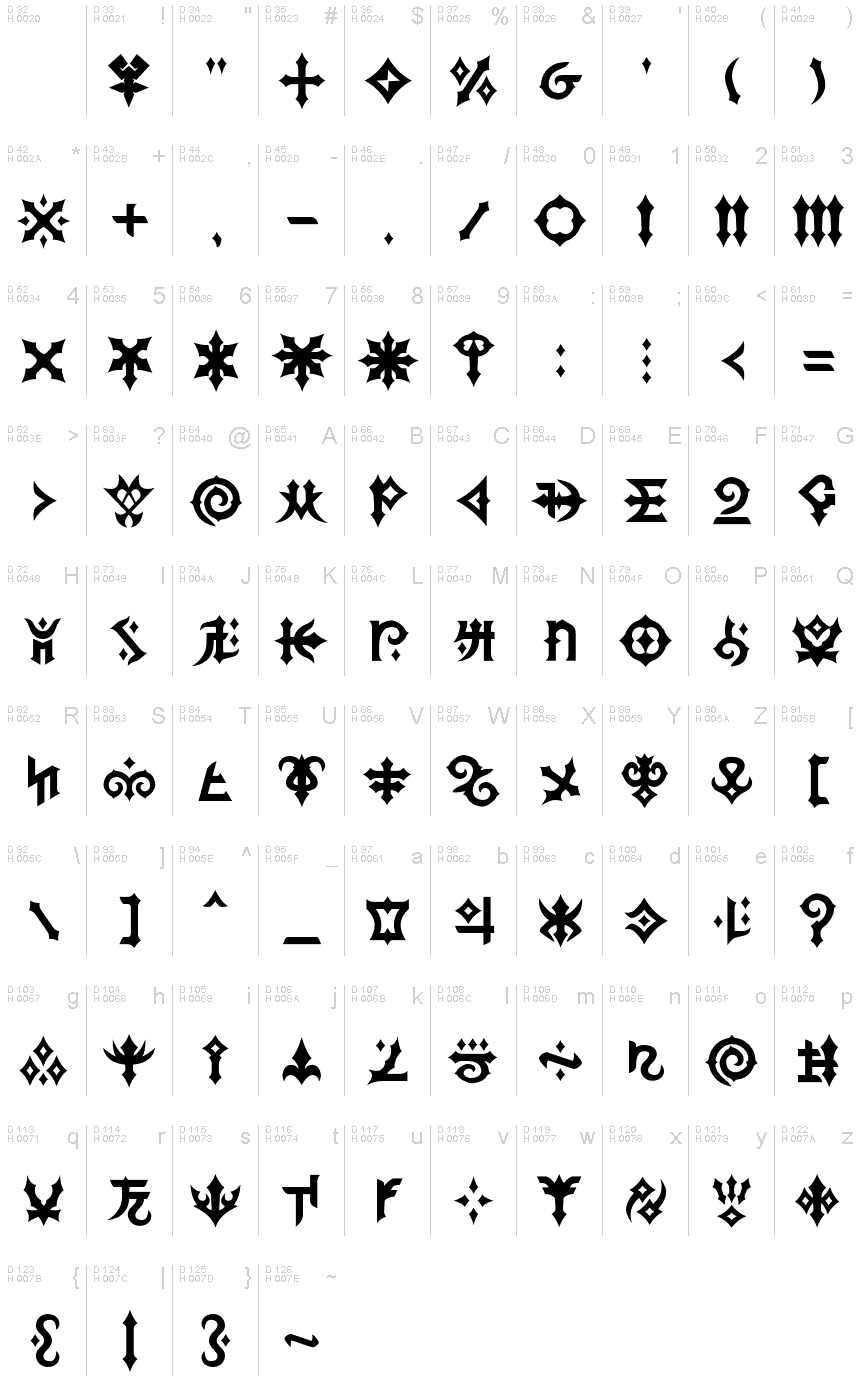
KHScala Regular
KHScala font is a cool decorative typeface designed by Televo.
In comparison to similar fonts found online, the characters in Re:Collection have been accurately recreated directly from the games where possible and have vastly improved spacing/kerning (especially when setting spacing to metric).
Numerous languages are supported including English, French, German, Italian, Spanish, Turkish, Polish, Norwegian, Swedish, Russian, Portuguese, Danish, Indonesian and many more latin-based languages. Note that while KHScala contains all known symbols, the font will contain translation inaccuracies becuase the Scalan language has not been fully deciphered.